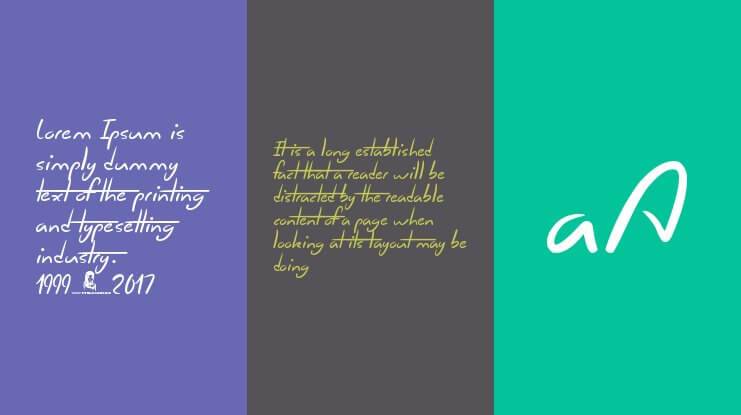
Chicken Fajitas is a Script and Hand-written typeface with great quality. Jonathan S. Harris created and published this lovely Font. The typeface can be downloaded for free and used for personal purposes. All uppercase and lowercase letters and a few special characters are included in the free version. From June 30, 2018, the typeface was accessible.
The Font family of this Font is Chicken Fajitas. The Font subfamily identification of this Font is Regular. The Font has a Unique identifier which is Chicken Fajitas: Version 1.00. The Full font name is Chicken Fajitas. The Postscript font name of this Font ChickenFajitas. It provides a number of distinct alternates that you may use in Adobe Illustrator or Photoshop by going to the glyphs panel. It’s simple to convert the lovely typography to a web font. OTF and TTF are the two formats in which the typeface is offered. The Font is encoded with PUA.
This is a fashionable and attractive handwritten and Script Font, a unique and artistic font with a fantastic dressing that will fulfill all of your specifications. This is a set of handwritten typefaces with distinct styles made specifically for invitations. It can be used for a variety of things, including logos, branding, business cards, flyers, and website headlines. It has a fantastic future sense and may be termed a modern style, even if it fits nicely in a classic environment. Every frozen food package may look wonderful with this Font.
| Name | Chicken Fajitas Font |
| Designer | Jonathan S. Harris |